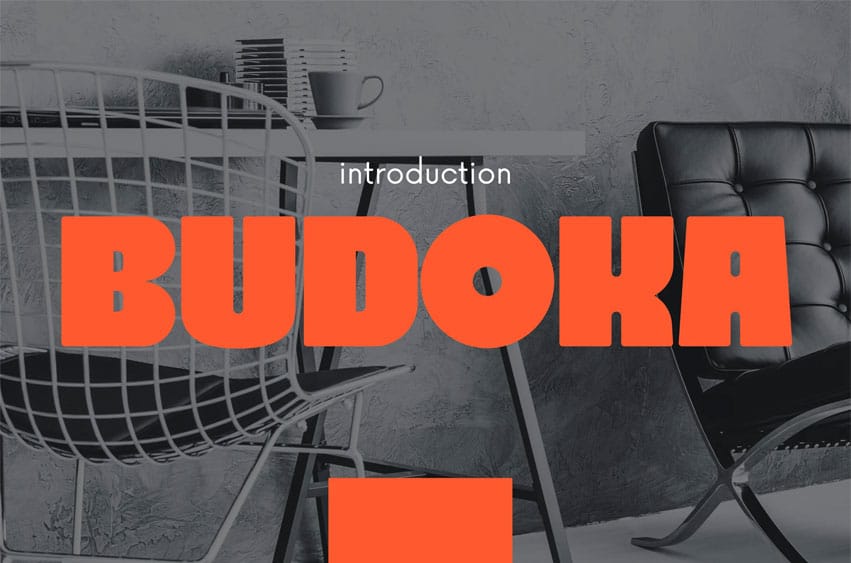
Budoka Font is bold geometric display type brings strong urban energy with blocky shapes and compact proportions. BUDOKA is crafted for designers who need loud visual impact in modern branding settings including streetwear posters, contemporary billboards, studio graphics, and high contrast social media layouts. The chunky letterforms, tight curves, and high weight balance create a confident tone that works perfectly across bold advertising and expressive visual identities.
BUDOKA delivers its best performance in bold design environments such as brand campaigns, product launches, promotional posters, fashion lookbooks, modern interior signage, digital storefronts, strong typographic layouts, and large scale advertising visuals. Its sturdy forms help create confident messaging while supporting clean and contemporary art direction across print and digital media.
- Strong geometric structure ideal for standout titles
- High weight presence for bold marketing visuals
- Perfect for streetwear branding and urban campaigns
- Clear readability even at extreme scale
- A versatile choice for posters signage packaging and digital ads